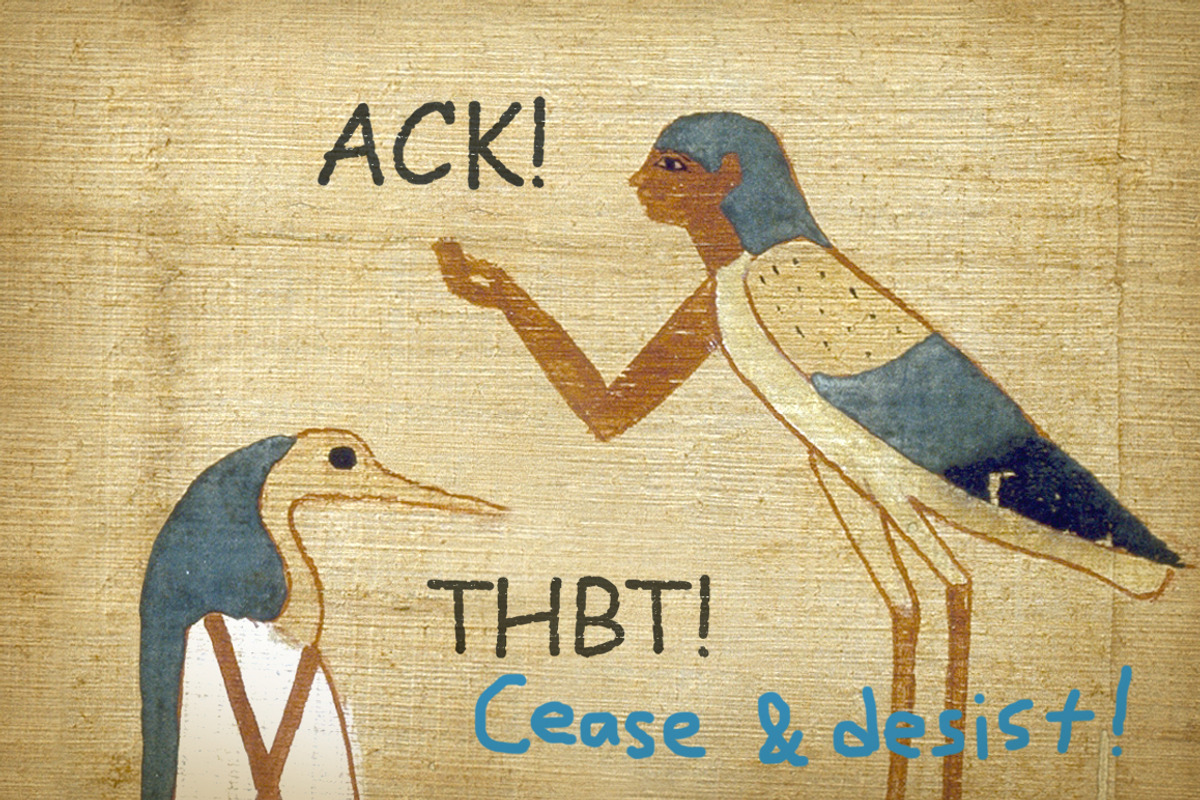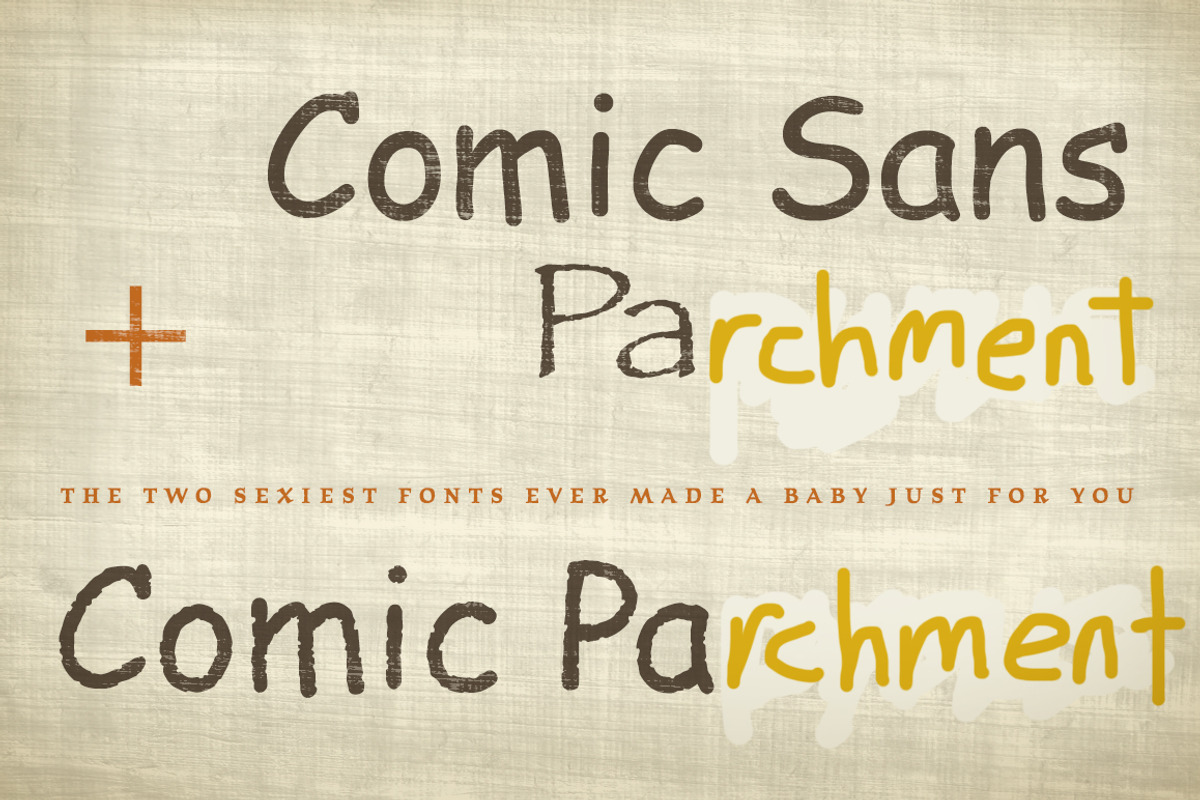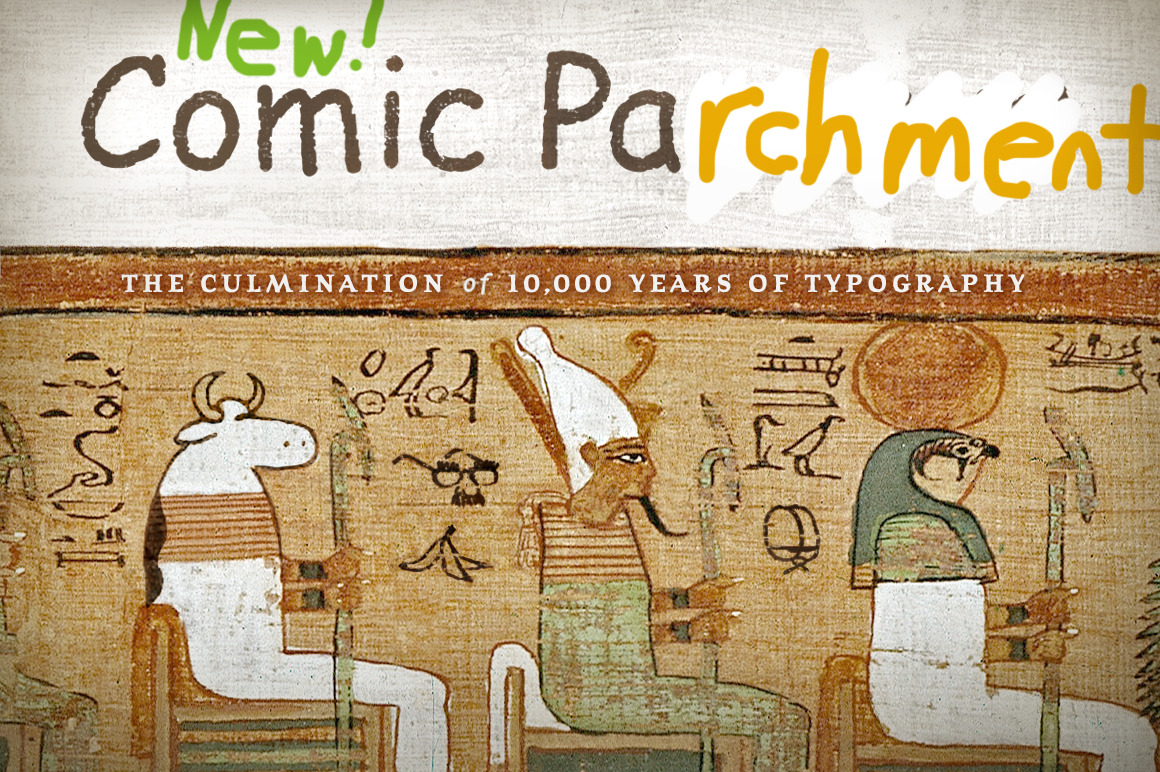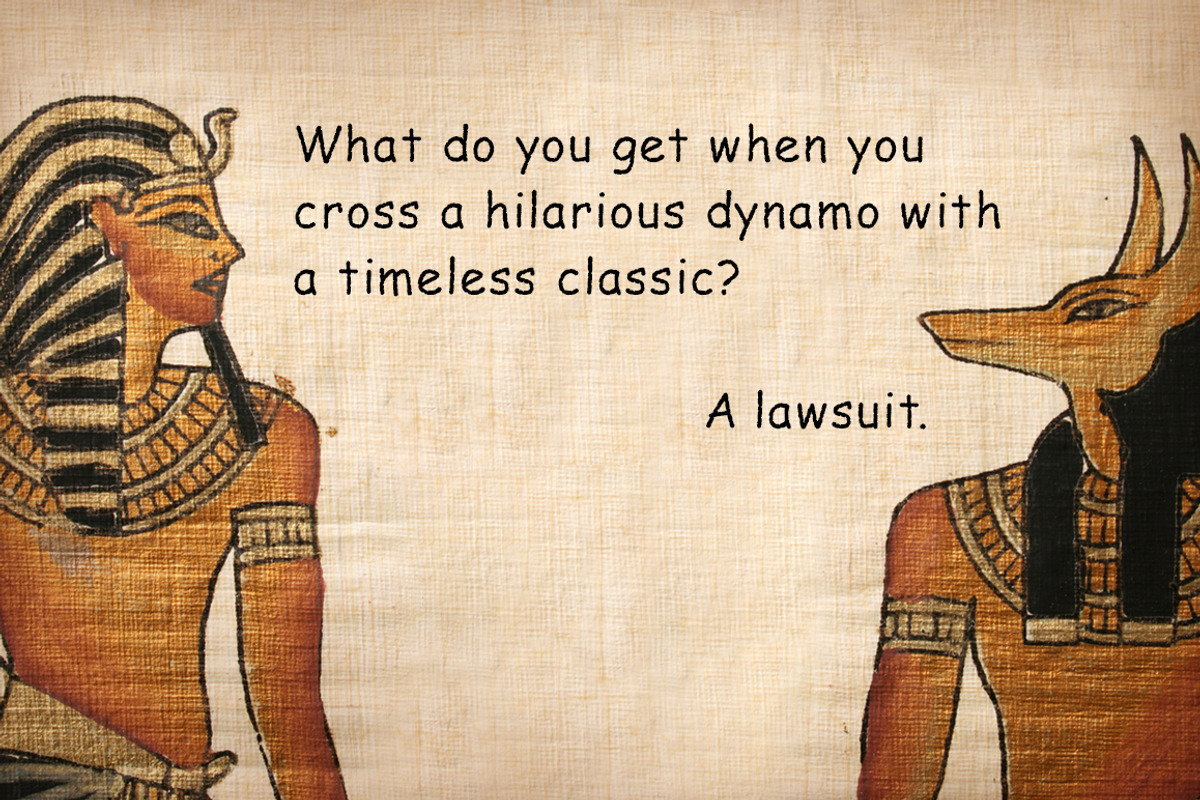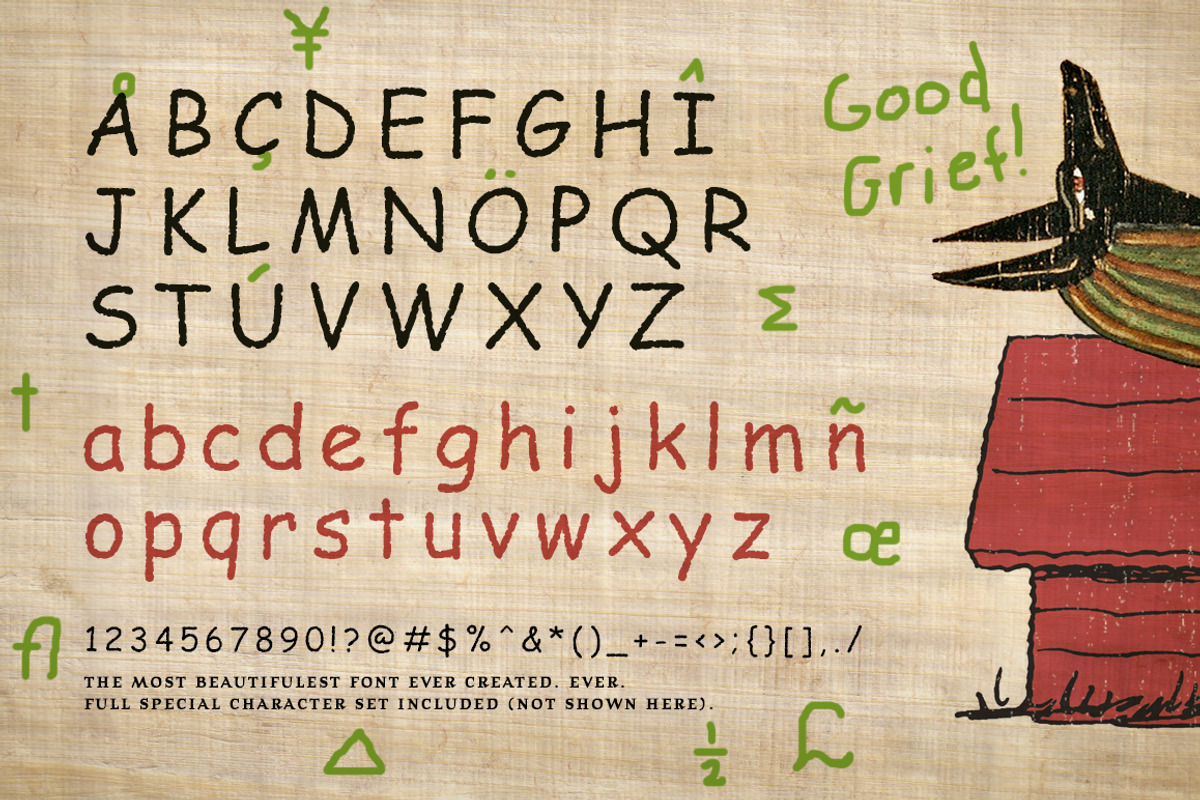
Comic "Parchment" Font [CENSORED]
SAME GLORIOUS FONT! MORE LEGAL NAME!
Comic “Parchment” was mankind’s first genetically-engineered superfont, boasting typographic DNA from the two most revered fonts in existence: Comic Sans and [CENSORED].
However, in what was perhaps the typographic scandal of the century, [CENSORED] quickly fell from grace and became just another deadbeat dad, denying he was ever in a relationship with Comic Sans.
“I’m not the father!” claimed [CENSORED], who is suing for damages. “Cease and desist!”
Meanwhile, their love child, Comic “Parchment”, has changed his last name in an effort to avoid the public shame (and associated legal fees). He also hopes to save (type)face by ordering a paternity test. Regardless of the results, however, Comic Parchment is still one sexy bastard.
Comic Sans, the mother, remains characteristically upbeat throughout. Check back later for version 3.0 - “Comedic” Parchment!